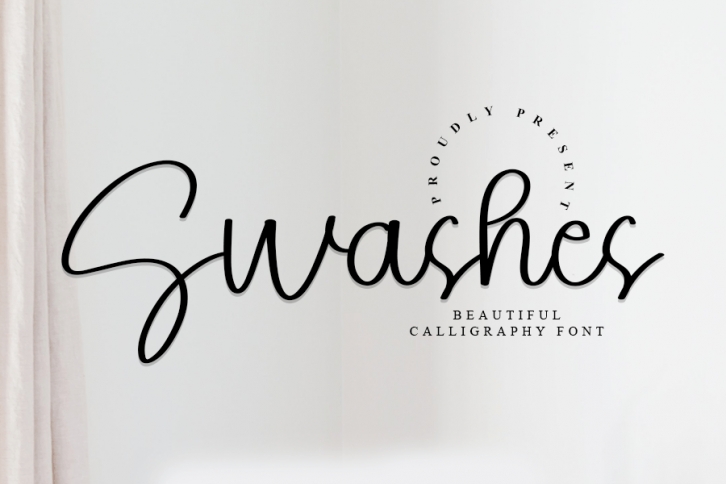
Swashes FONT Download
Swashes is a trendy handwritten font with a contemporary atmosphere and impeccable form, inspired by a timeless classic calligraphy. It will add elegance and class to any of your design projects. This font can be used to write various kinds of products according to the aspect of each need.